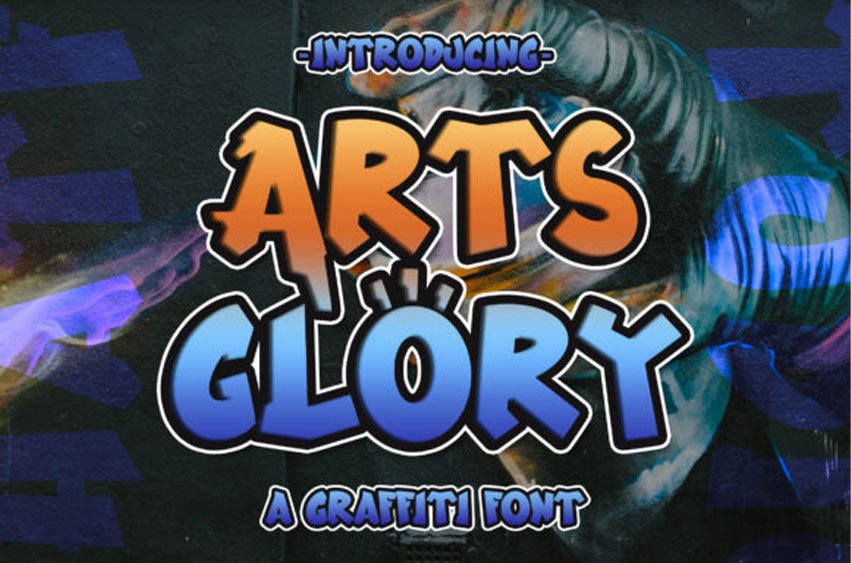
Arts Glory Font is a graffiti styled display font. It is great for delivering any message with confidence, authenticity and charm.
Use it for cartoons, magazine covers, games or pretty much anything that requires a jolly touch.